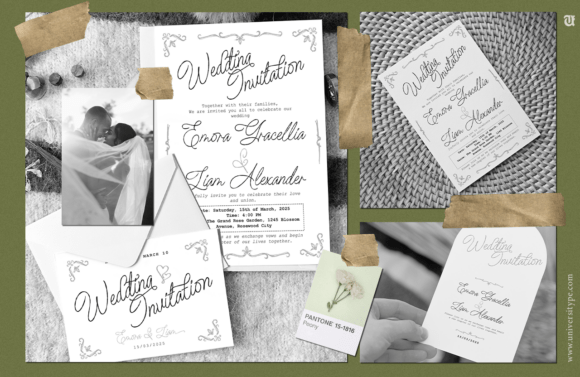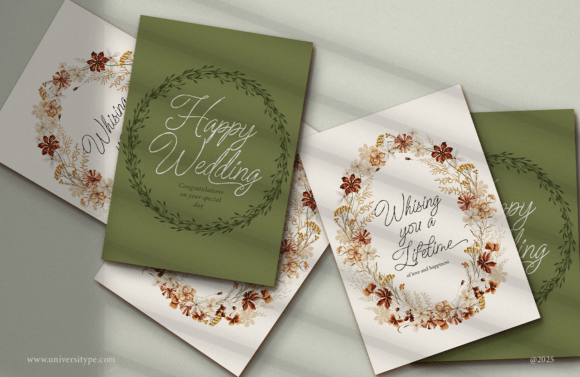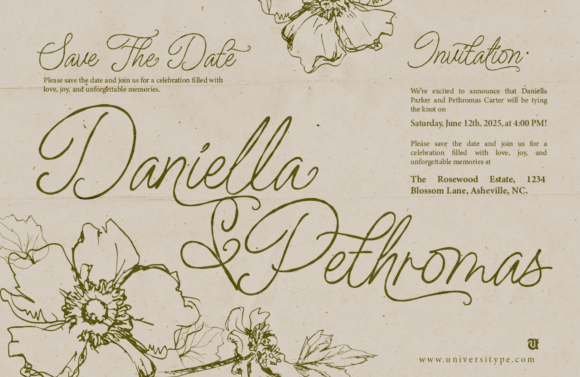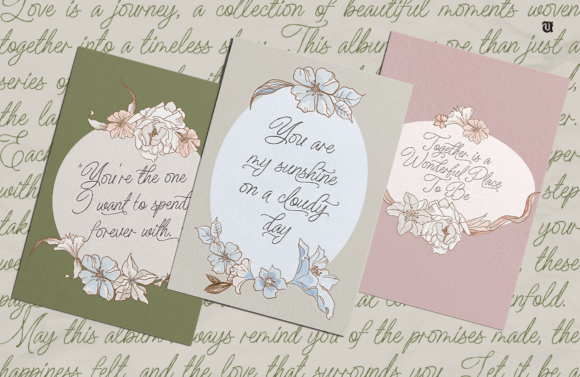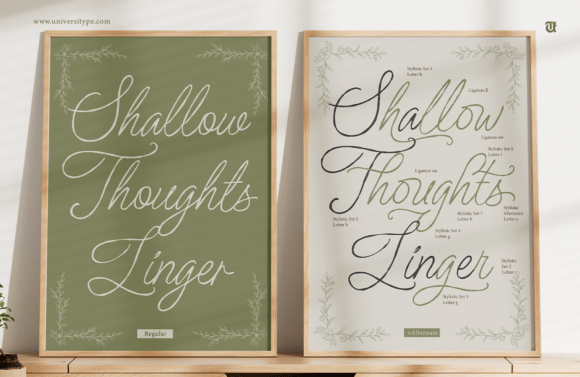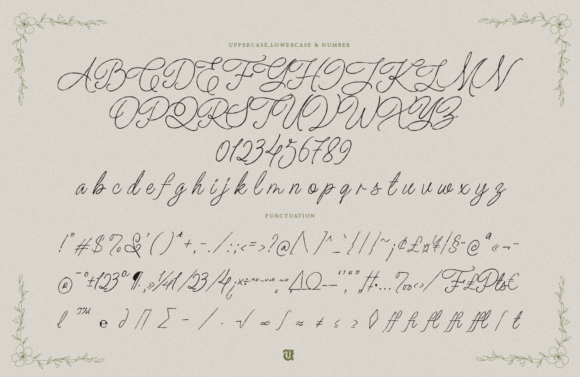
Introduction to Nikahan Script Font
Experience the charm of UT Nikahan Script, a stunningly romantic wedding font emanating all the grace of classic calligraphy.
Impeccably crafted with lavish details and fluid strokes, this font brings a touch of exclusivity to all your wedding stationery, leaving your guests awestruck UT Nikahan Script finds its audience in the meticulous wedding planners, artistic designers, and couples who crave an extra dollop of sophistication in their wedding day paraphernalia – be it the invites, save-the-dates, or other matrimonial correspondences.